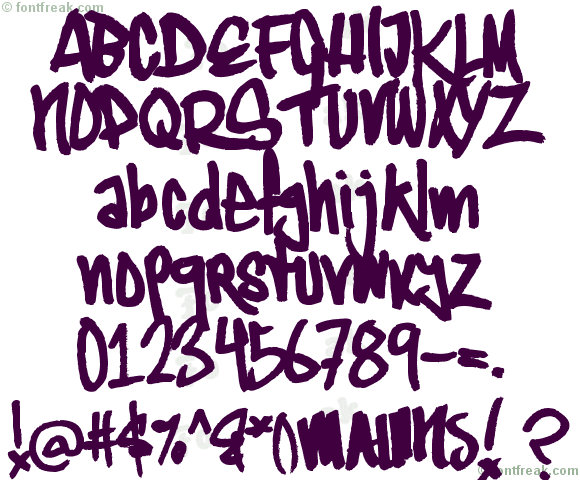
Typographic Onedalism
About Typographic Onedalism
Typographic Onedalism by Mans Greback is a unique display font that captures the essence of contemporary typographic art. This font is characterized by its playful, informal style, making it an excellent choice for a variety of design projects. With its thick, expressive strokes and a slightly irregular baseline, Typographic Onedalism exudes a handwritten quality that adds warmth and personality to any text. The font features moderate contrast in stroke weight, giving it a dynamic feel, while the spacing between characters is well-balanced, ensuring readability without sacrificing its artistic flair.
This versatile font can be used effectively in several applications. It's perfect for wedding invitations, where its casual elegance can set a charming tone for the occasion. Additionally, it works wonderfully for movie posters, lending a bold and eye-catching aesthetic that draws attention to key titles and taglines. Restaurant menus can benefit from its inviting appearance, making the dining experience feel more personalized. Small business owners will find Typographic Onedalism ideal for branding materials, as it conveys a creative and approachable image.
What sets Typographic Onedalism apart is its blend of artistry and functionality. The font’s distinctive style not only communicates a message but also evokes emotion, making it a standout choice for those looking to make a lasting impression. For anyone seeking a fresh and engaging typeface, the Typographic Onedalism font free download is an opportunity not to be missed.